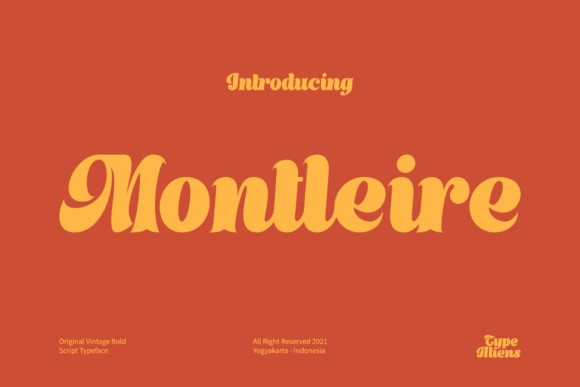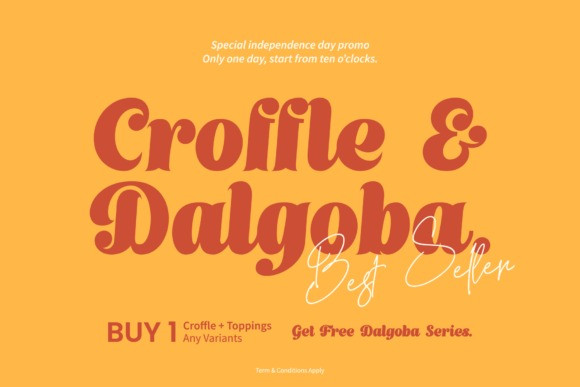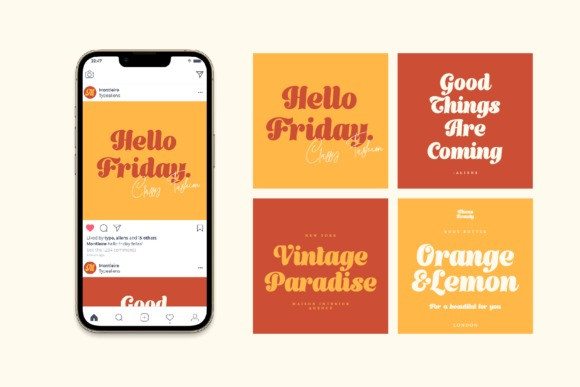
Montleire Font
Montleire is a gorgeous and bold handwritten font, crafted to give your headlines and logotype projects a retro touch. This font reads as strong, confident, and dynamic and can add tons of nostalgic character to your designs.